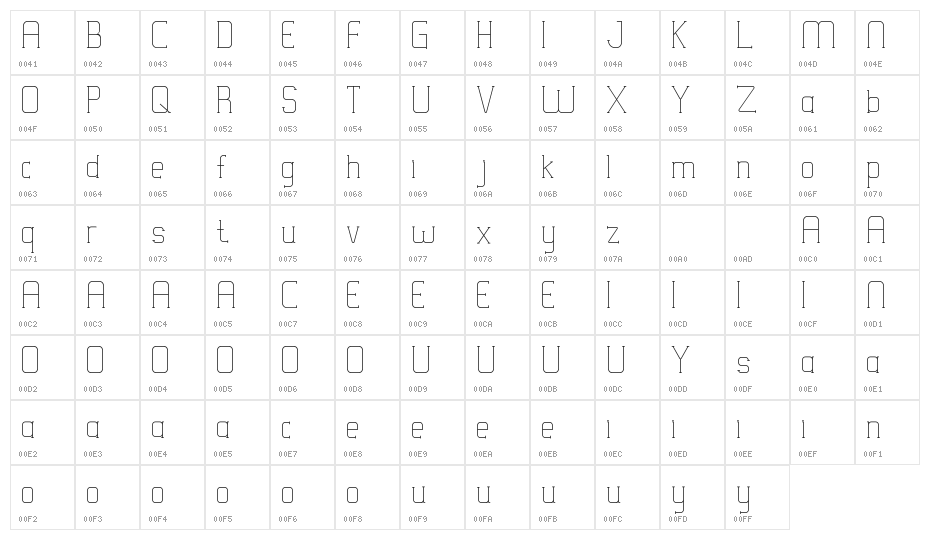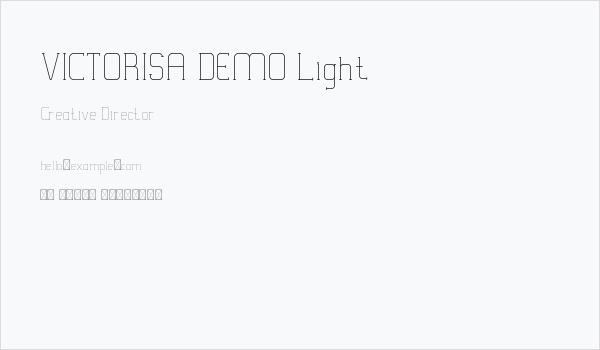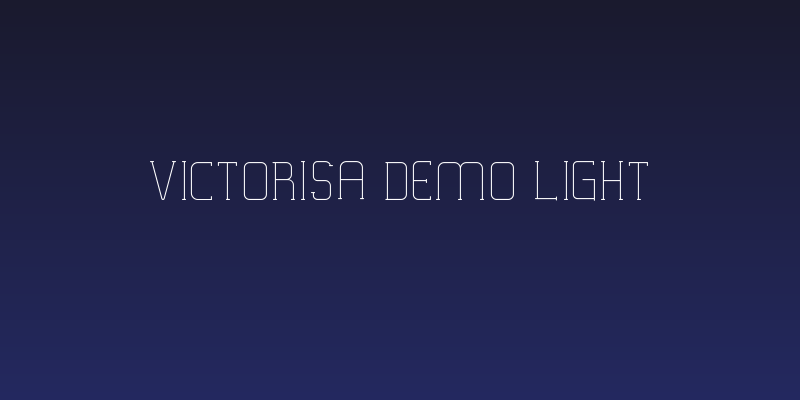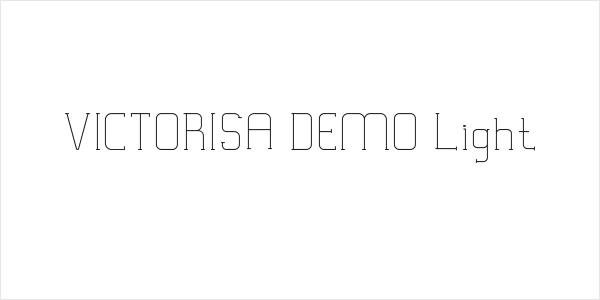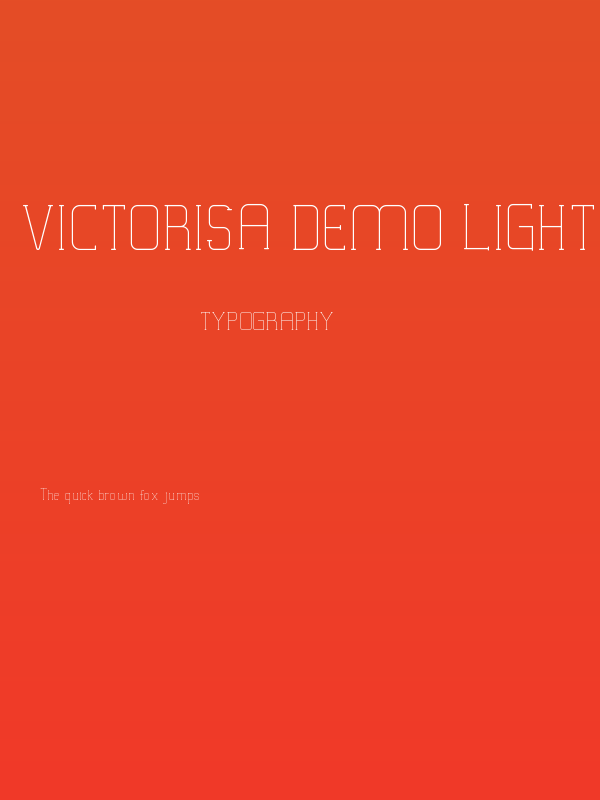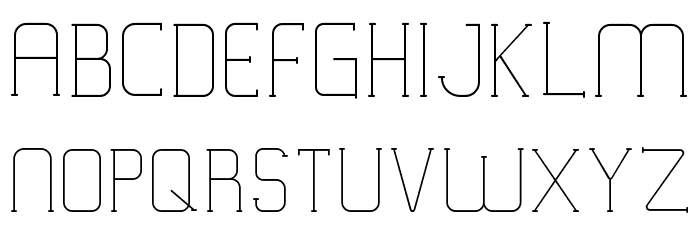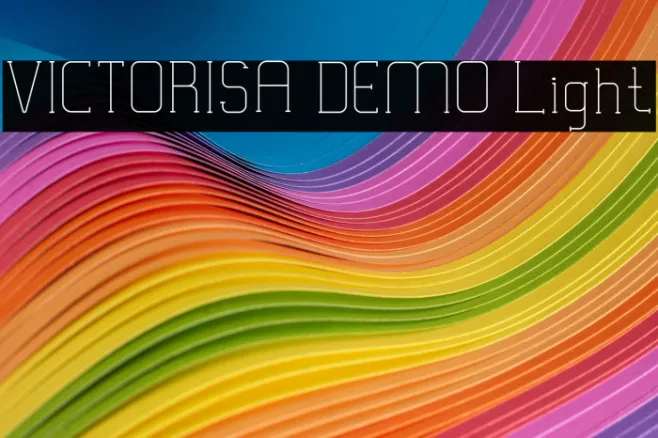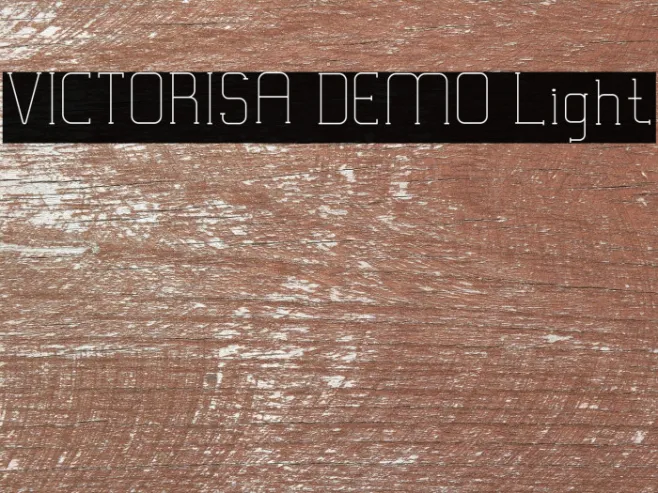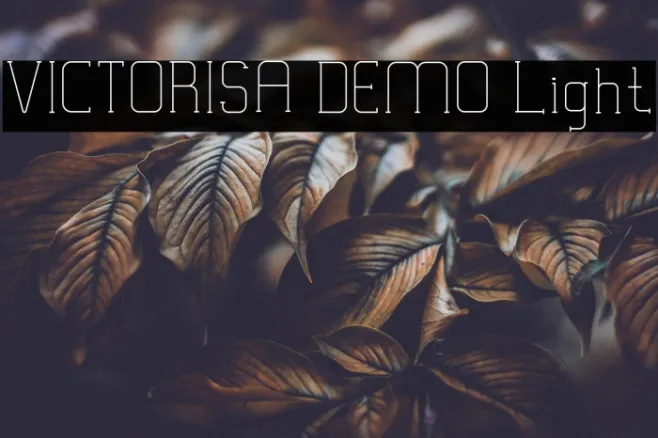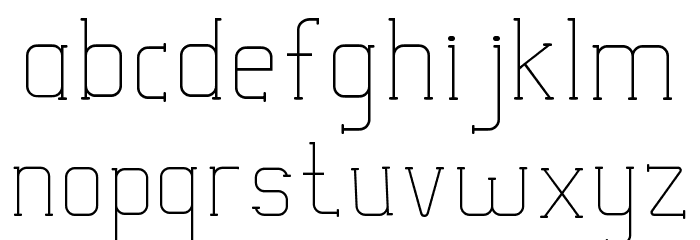
VICTORISA DEMO Light Font
VICTORISA DEMO Light Description
This font features a modern, geometric design with a clean and minimalist aesthetic. The characters are constructed with thin, uniform lines that create a sense of elegance and simplicity. The uppercase and lowercase letters maintain a consistent height and width, contributing to a balanced and harmonious appearance. The font's linear and angular elements give it a futuristic feel, while the open counters and generous spacing enhance readability. Its unique style makes it suitable for contemporary design projects, where a sleek and sophisticated look is desired.
| Proposed Projects | Ideal for tech branding, modern posters, minimalist web design, and futuristic logos. |